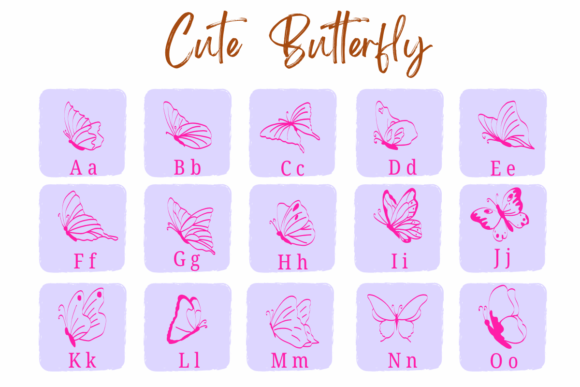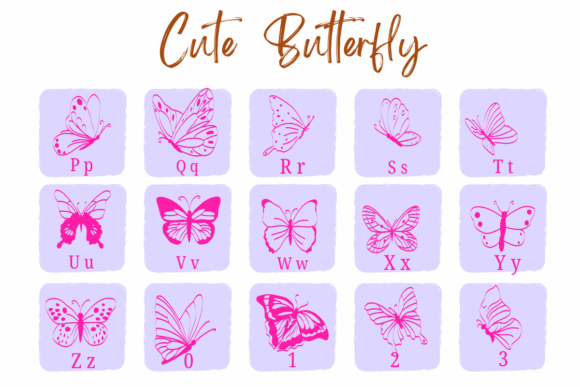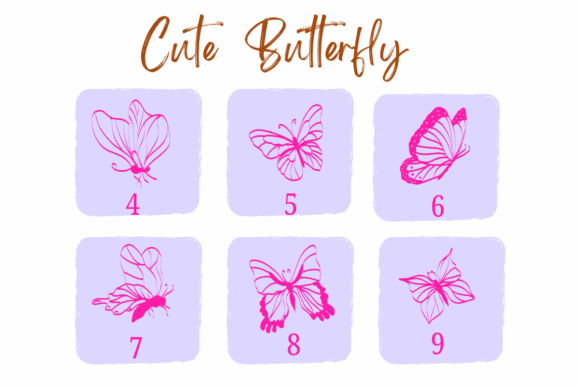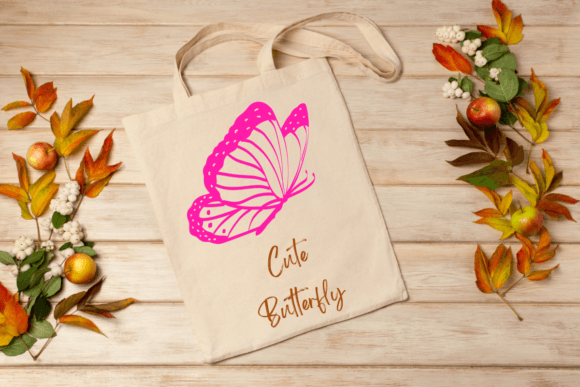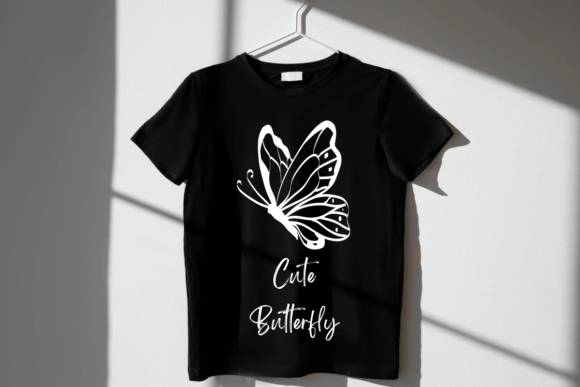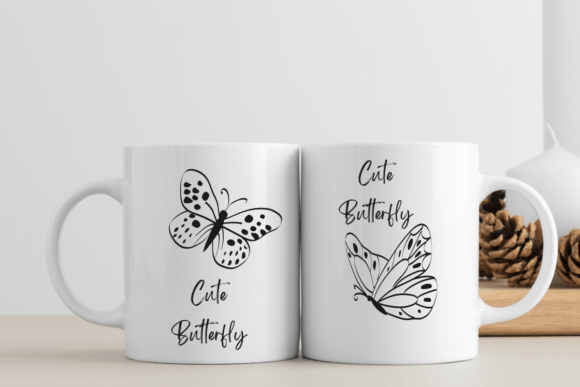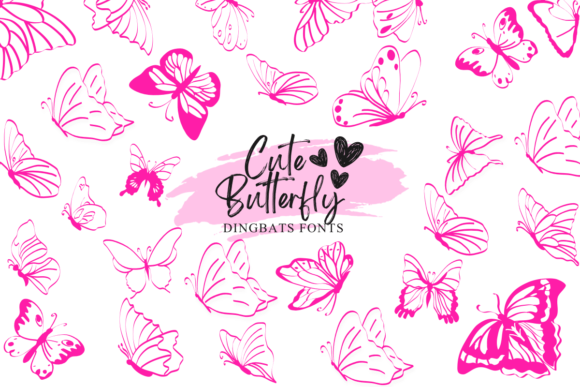
Catch the Whimsy: Unlocking the Magic of Cute Butterfly Font
Have you ever stared at a blank page, feeling stuck and uninspired, only to have a spark of creativity ignite when you stumbled upon the perfect font? That’s exactly what happened to many designers when they discovered the enchanting Cute Butterfly Font. This delightful dingbat font is more than just a collection of characters – it’s a key to unlocking a world of whimsical wonder.
Cute Butterfly Font is a charming set of butterfly designs that can add a playful touch to any project. From greeting cards to children’s books, this font is perfect for designers looking to inject a little magic into their work. With its unique and varied butterfly styles, the Cute Butterfly Font offers endless possibilities for creative expression.
Cute Butterfly Font Key Features
• Font Family: Cute Butterfly Font is a unique, hand-drawn font designed to evoke a sense of whimsy and playfulness.
• Character Set: Includes uppercase and lowercase letters, numerals, punctuation, and special characters, making it suitable for a wide range of applications.
• Unique Characteristics: Features a delicate, hand-painted design with subtle texture and imperfections, giving it a charming, one-of-a-kind feel.
Cute Butterfly Font Review
Overall, I’m impressed with the Cute Butterfly Font – it’s a delightful addition to any design project. ✨ The playful, whimsical feel of the font is perfect for creating a sense of wonder and magic. Here are a few things that I think really work well:
• Unique design: The Cute Butterfly Font stands out from more traditional fonts with its quirky, hand-drawn feel.
• Fun and expressive: This font is perfect for adding a touch of personality to your designs.
• Works well for titles and headings: The font’s bold, playful style makes it ideal for grabbing attention with titles and headings.
However, there are a few limitations to consider: ⚠️ The font may not be suitable for formal or professional projects, as it can come across as a bit too childish. Additionally, the font may not be as legible at smaller sizes, which could make it difficult to read in certain contexts.
Overall, I think the Cute Butterfly Font is a great choice for designers looking to add a touch of whimsy and personality to their projects. With its unique design and playful feel, it’s perfect for creating eye-catching titles, headings, and other design elements.
The Cute Butterfly Font is perfect for:
• Children’s party invitations
• Baby shower invitations
• Wedding invitations
• Graphic design projects
To get the most out of the Cute Butterfly Font, try:
• Pairing it with pastel colors for a soft, whimsical look.
• Using it in combination with other playful fonts for a unique look.
• Experimenting with different font sizes and styles to create visual interest.
Alternatives to Cute Butterfly Font
Great Vibes is a modern, cursive script font that is perfect for creating a playful and elegant look. It is ideal for use in invitations, greeting cards, and other creative projects. Great Vibes has a more refined and sophisticated feel compared to Cute Butterfly Font, which is more whimsical and childlike.
Carolyna Pro is a beautiful, elegant script font that is great for use in high-end branding, packaging, and editorial design. It has a more polished and refined feel compared to Cute Butterfly Font, which is more casual and playful. Carolyna Pro is ideal for projects that require a touch of sophistication and luxury.
Dancing Script is a elegant, connected script font that is perfect for creating a fun and playful look. It is ideal for use in invitations, greeting cards, and other creative projects. Dancing Script has a more dynamic and energetic feel compared to Cute Butterfly Font, which is more static and cute.
Alex Brush is a elegant, handwritten script font that is great for use in branding, packaging, and editorial design. It has a more refined and sophisticated feel compared to Cute Butterfly Font, which is more casual and playful. Alex Brush is ideal for projects that require a touch of elegance and sophistication.
Q: What is the recommended font size for optimal readability with the Cute Butterfly Font?
The recommended font size for optimal readability with the Cute Butterfly Font is between 12pt and 24pt. However, this may vary depending on the specific application, screen resolution, and viewing distance. Experiment with different font sizes to find the optimal setting for your project.